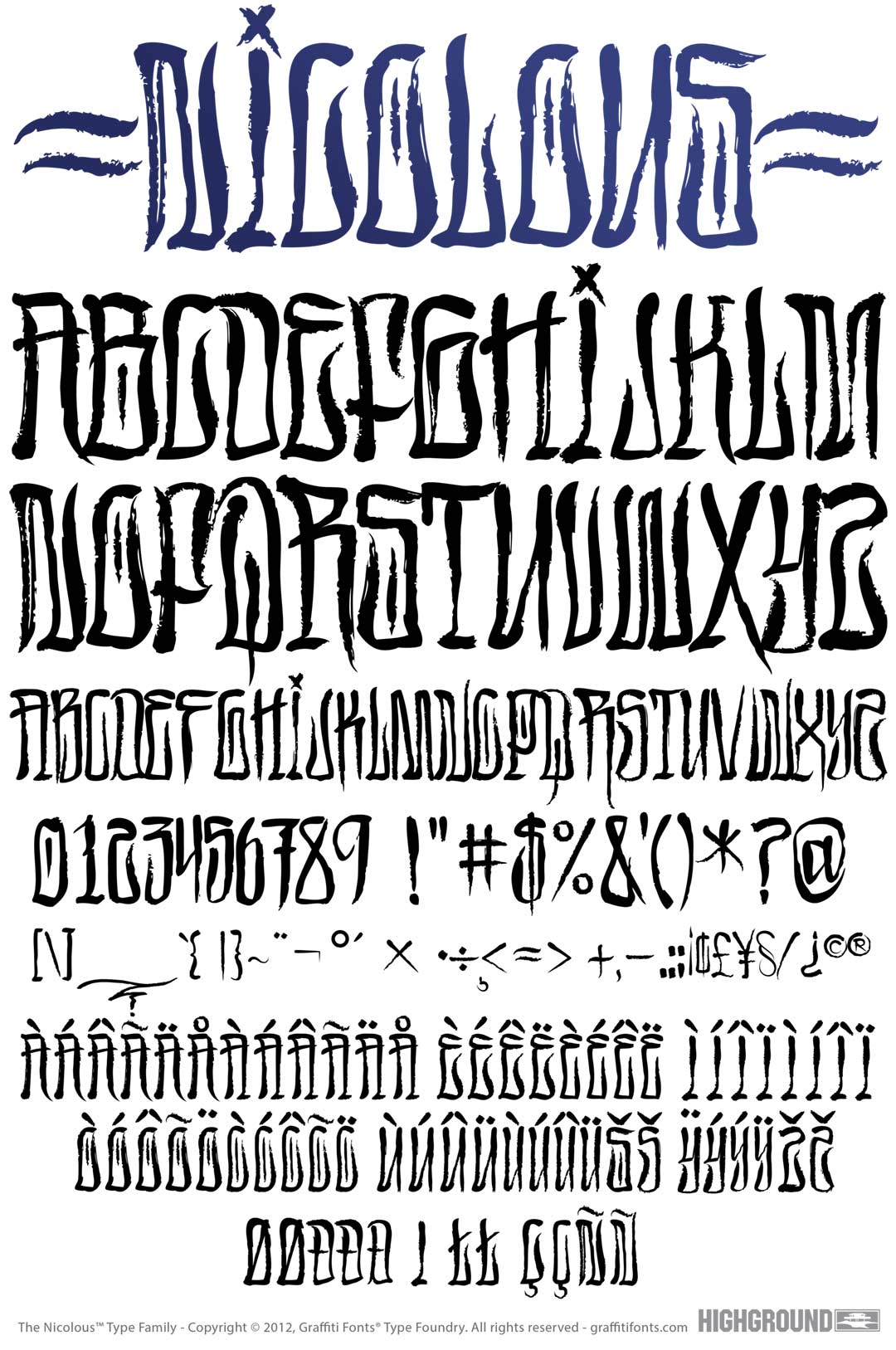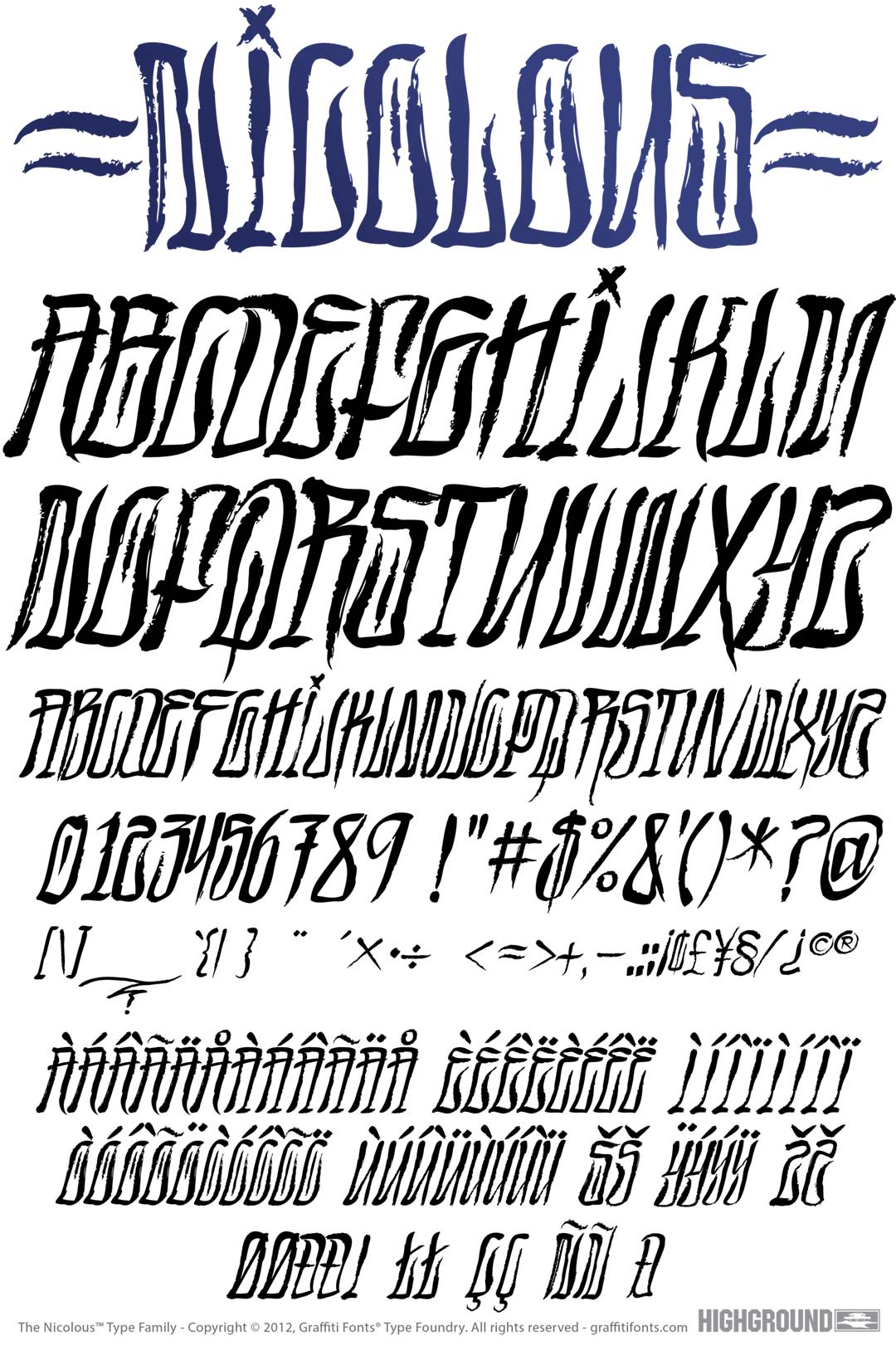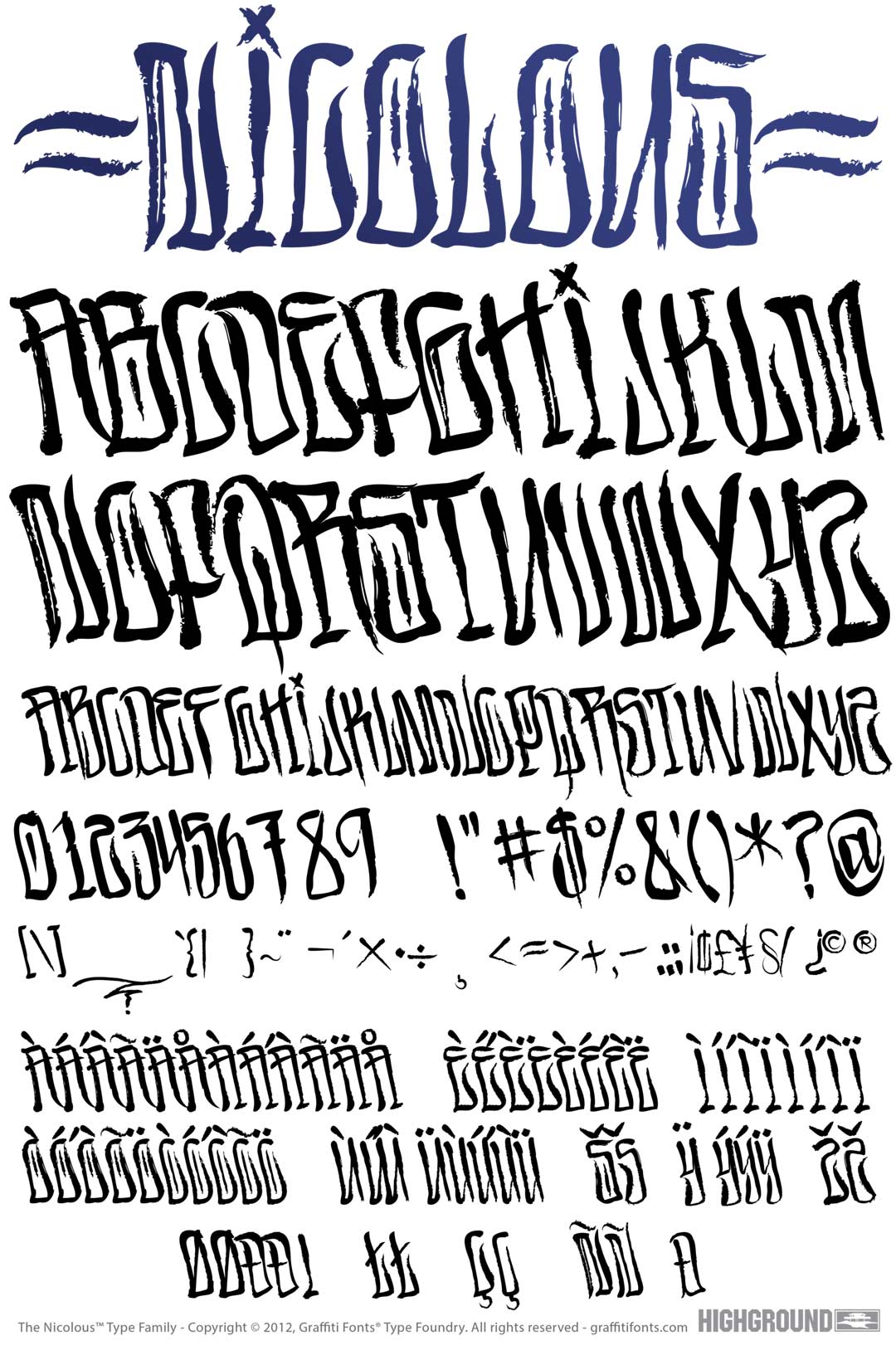
Nicolous Font
Nicolous Graffiti Alphabet
Nicolous Graffiti Font Family
Nicolous is a tall, condensed, handwritten graffiti font built to emulate certain modern American, west coast graffiti styles. The varied stroke width & rough edges can produce the look of a number of different writing implements, paint brush, pencil, marker, chalk etc. The characteristic "lean" style is a similar to a reverse italic for a more fluid appearance. This family features a robust character set with multi-lingual support.